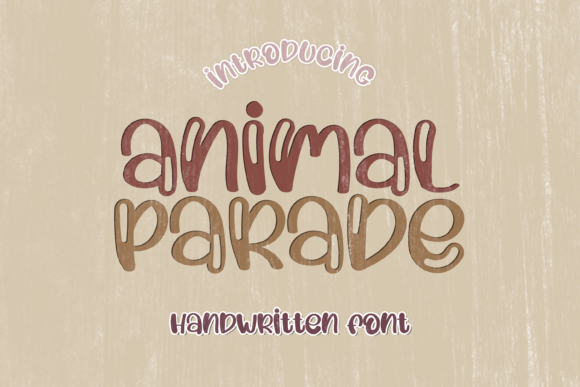
The Ultimate Design Game-Changer: Animal Parade Font
I’ll never forget the design project that had me stuck in a font rut. I was working on a children’s book illustration, and my client requested a playful, eye-catching font that would bring the story to life. As I scrolled through my font library, nothing seemed quite right – until I stumbled upon Animal Parade. This glossy, cartoon-like display font was the perfect blend of fun and sophistication. In this article, I’ll share my experience with Animal Parade, its features, and how to make the most of it in your designs.
An Honest Review of Animal Parade Font
What I Love About Animal Parade ✨
- ✅ Sleek and modern design: Animal Parade’s unique style is perfect for making any design project stand out.
- ✅ Cartoon-like charm: The font’s playful feel is ideal for children’s books, games, and educational materials.
- ✅ Glossy finish: The font’s subtle shine effect adds depth and visual interest to any design.
- ✅ Ease of use: Animal Parade is surprisingly easy to work with, even for those new to design.
- ⚠️ Limited use cases: While Animal Parade is amazing for display text, it may not be the best choice for body text or small font sizes.
- ⚠️ Glyph limitations: Some users may find the glyph selection limited, but this can also be seen as a blessing in disguise for maintaining a cohesive look.
The Backstory Behind Animal Parade Font
Animal Parade was designed with the intention of bringing a playful, yet sophisticated touch to display text. The creator aimed to craft a font that would stand out in children’s books, games, and educational materials while maintaining a level of elegance. The result is a font that’s both fun and versatile.
| Font Name | Animal Parade Font |
| Author | WADLEN |
| What is Animal Parade Font best used for? | Animal Parade is ideal for display text in children’s books, games, educational materials, and any project requiring a playful yet sophisticated look. |
| Is Animal Parade suitable for body text? | While Animal Parade is amazing for display text, it may not be the best choice for body text or small font sizes due to its unique design and glossy finish. |